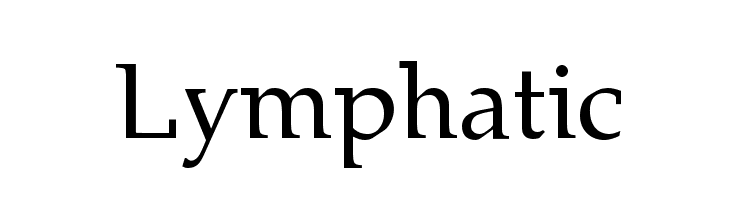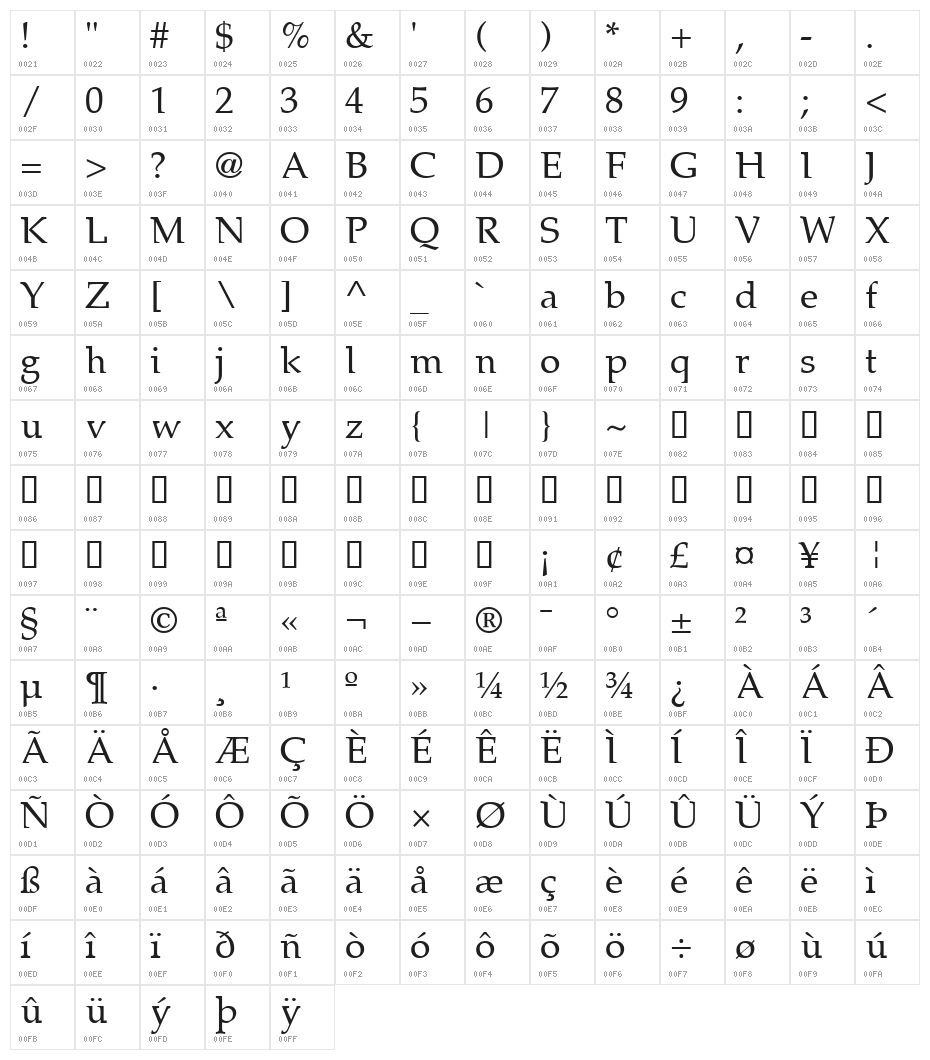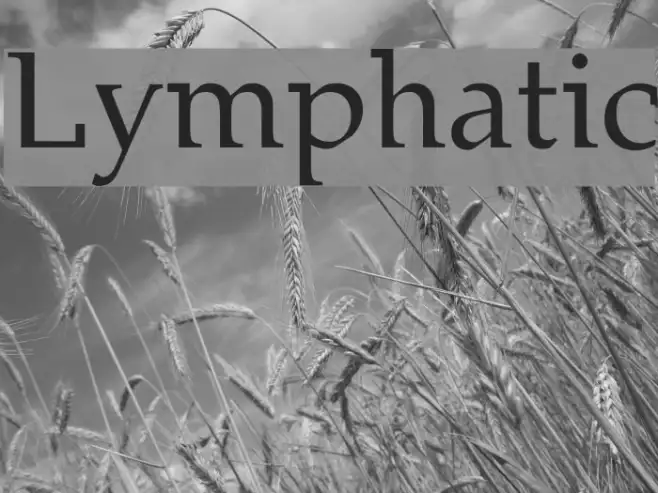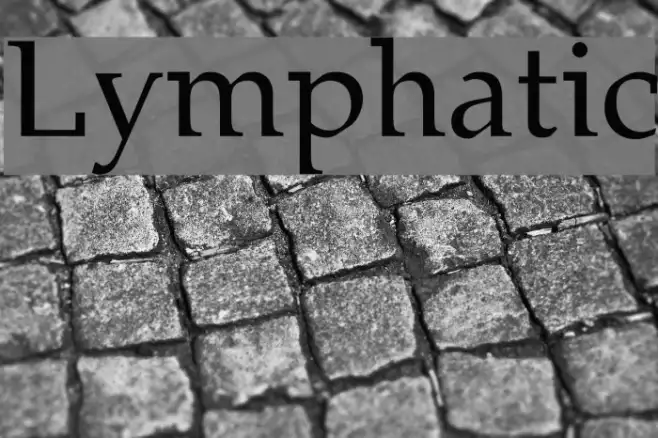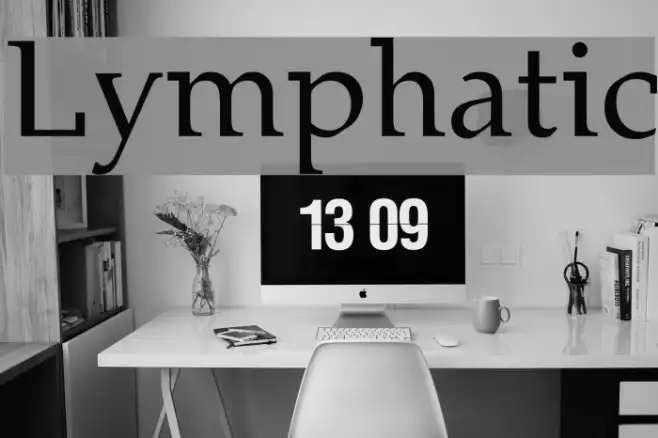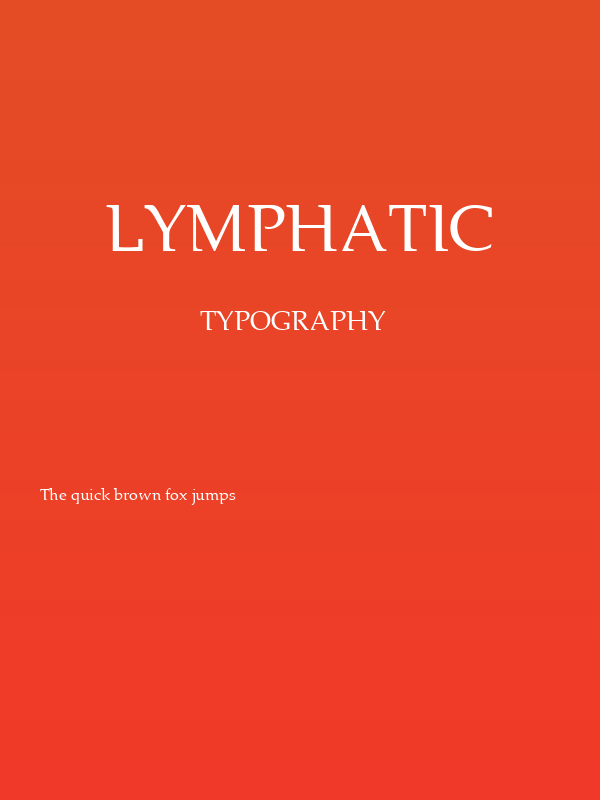
Lymphatic Font
Lymphatic Description
This font features a classic serif style with elegant, well-defined strokes and a balanced proportion between thick and thin lines, providing a high contrast that enhances readability. The uppercase letters are bold and commanding, while the lowercase letters maintain a graceful and refined appearance. The numerals are clear and distinct, making them suitable for both text and numerical data presentation. Special characters are designed with the same attention to detail, ensuring consistency across all glyphs. This font's timeless design makes it versatile for various applications.
| Proposed Projects | Ideal for editorial design, book covers, formal invitations, and branding materials. |